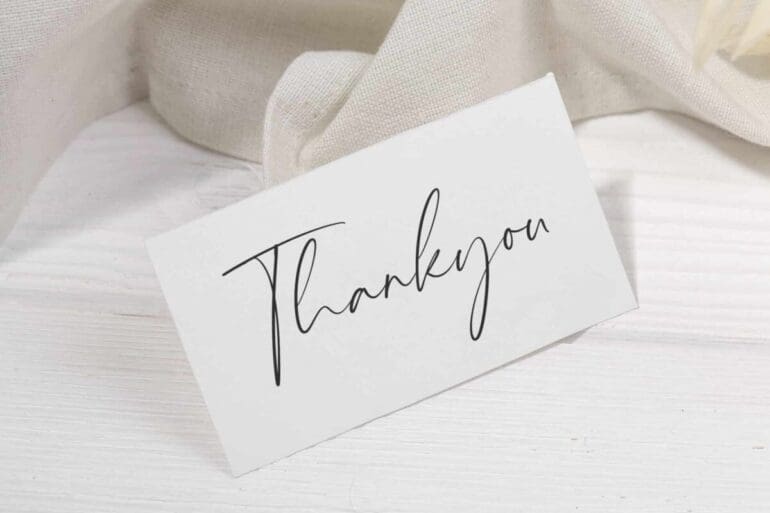
Historic Times Font
Historic Times is a modern handwritten script font. Historic Times is perfect for product packaging, branding project, magazines, social media, weddings, or just used to express words above the background.